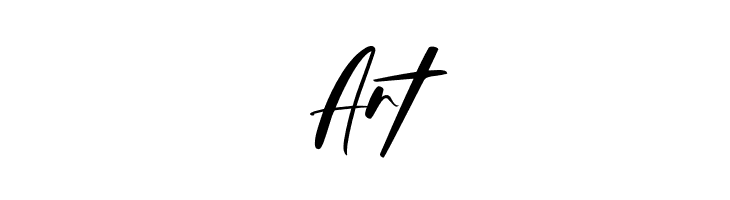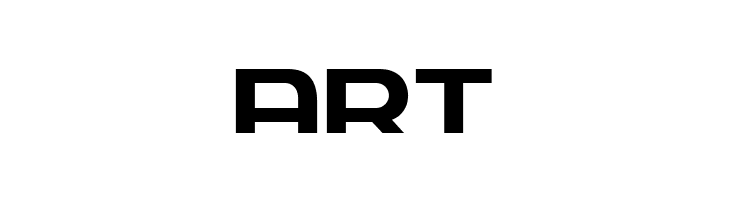
A modern sans-serif font with a semi-bold weight, offering clarity and professionalism.
A modern sans-serif font with clean lines and balanced proportions.
A modern, light sans-serif font with clean lines and balanced proportions.
A dynamic, fluid handwritten script with elegant, flowing strokes.
A modern, cursive script font with bold, flowing strokes and elegant connections.
A bold, expanded, and geometric font with a modern aesthetic.
A bold, italic font with high contrast and dynamic style.
A bold, italicized font with a modern, dynamic style.